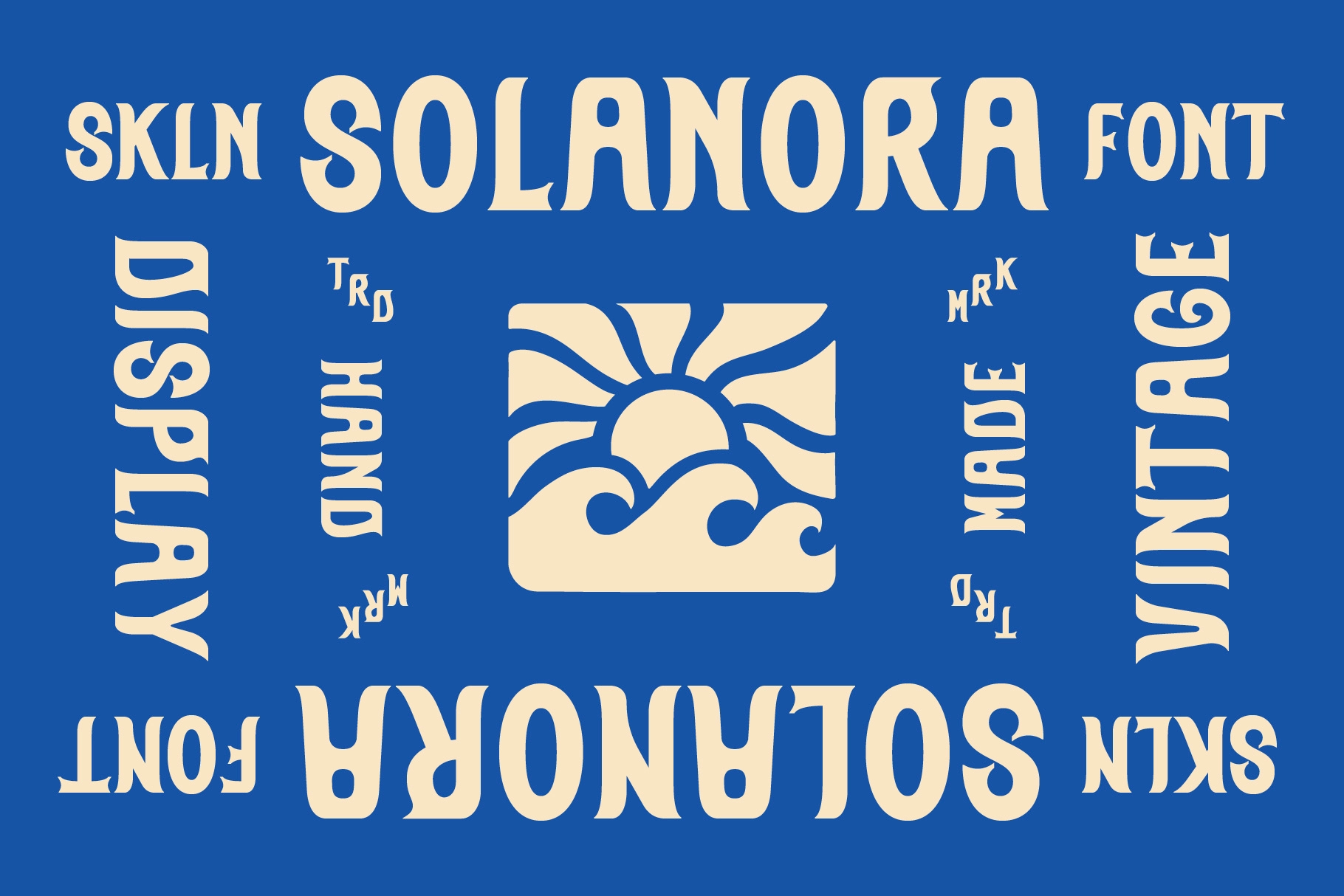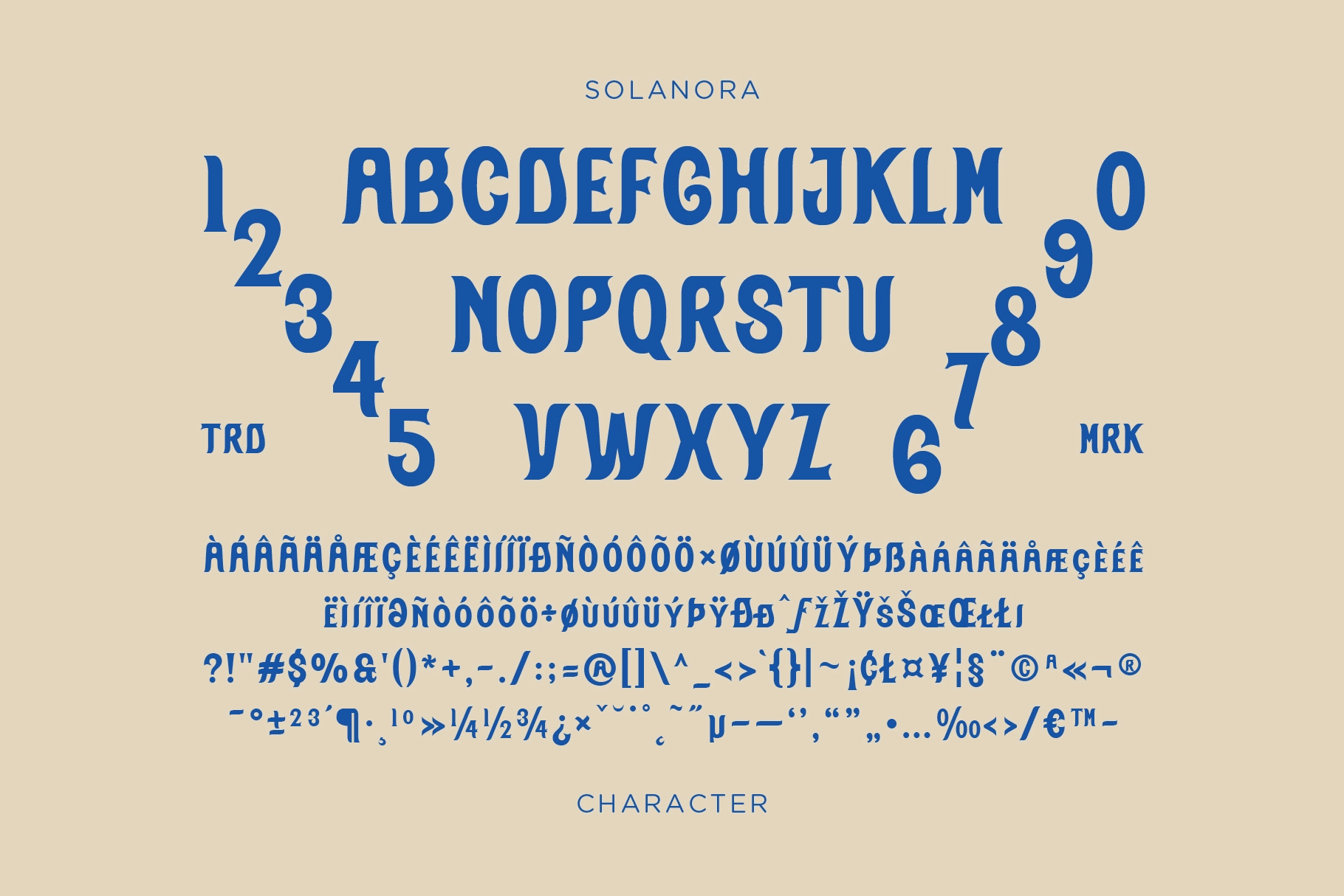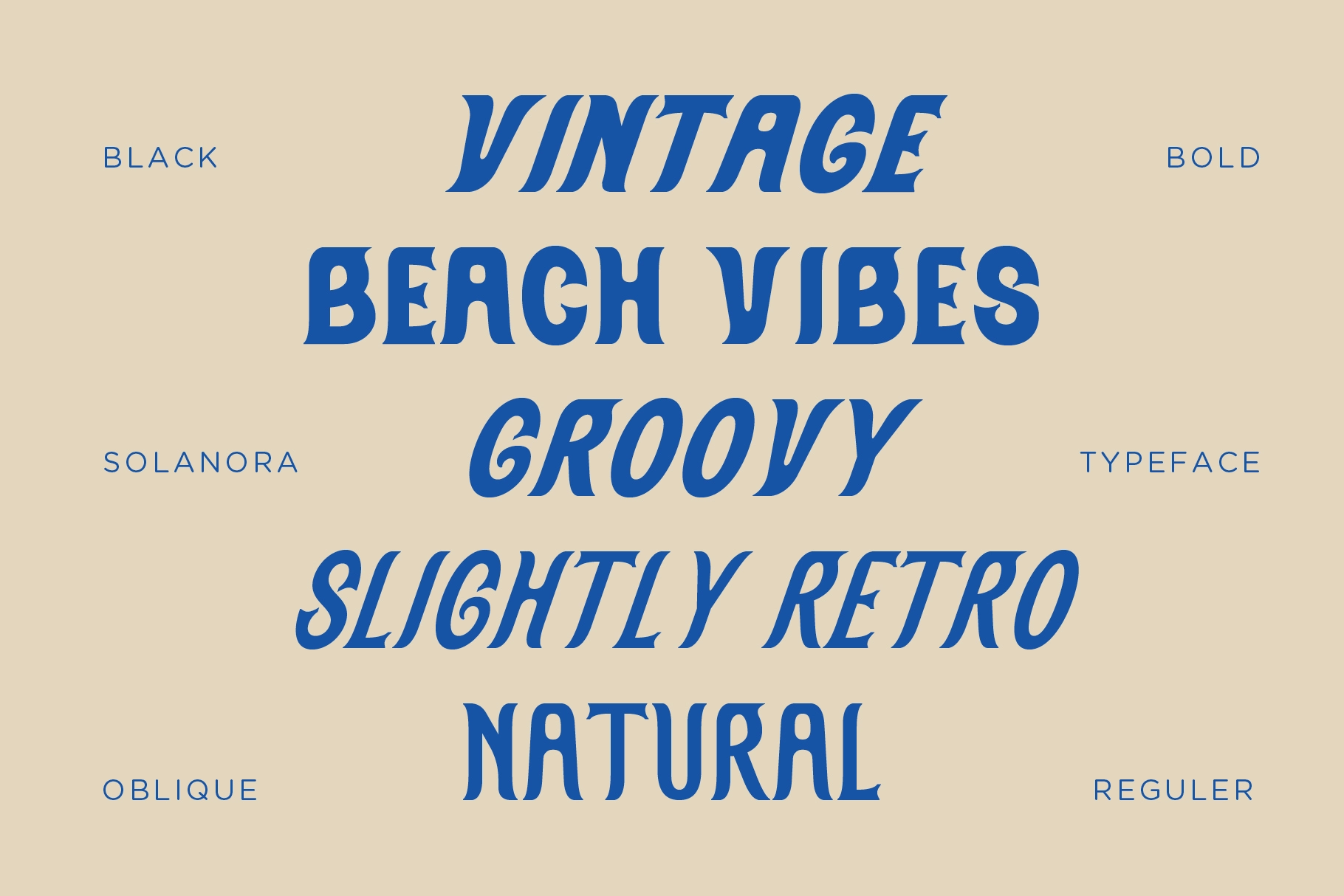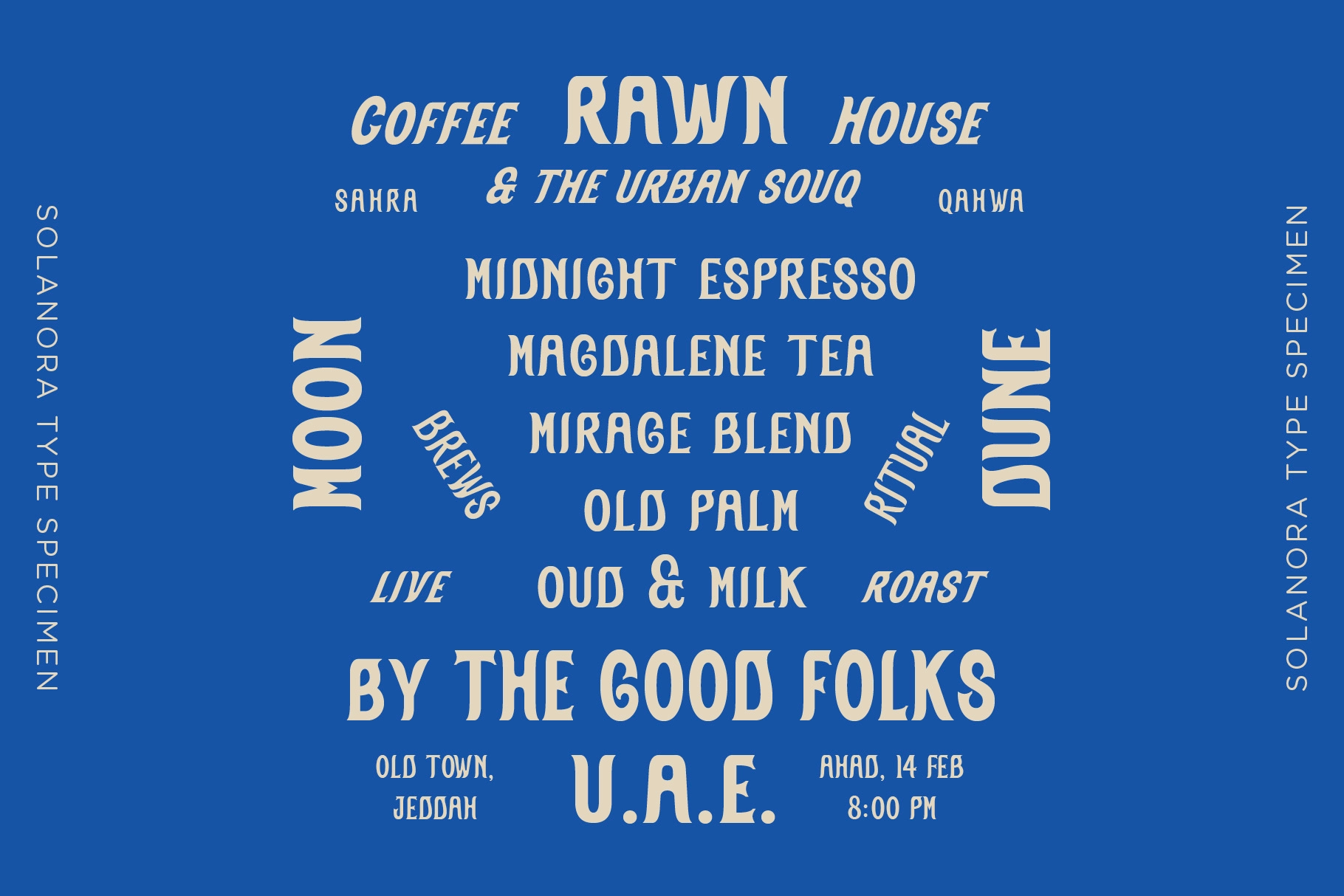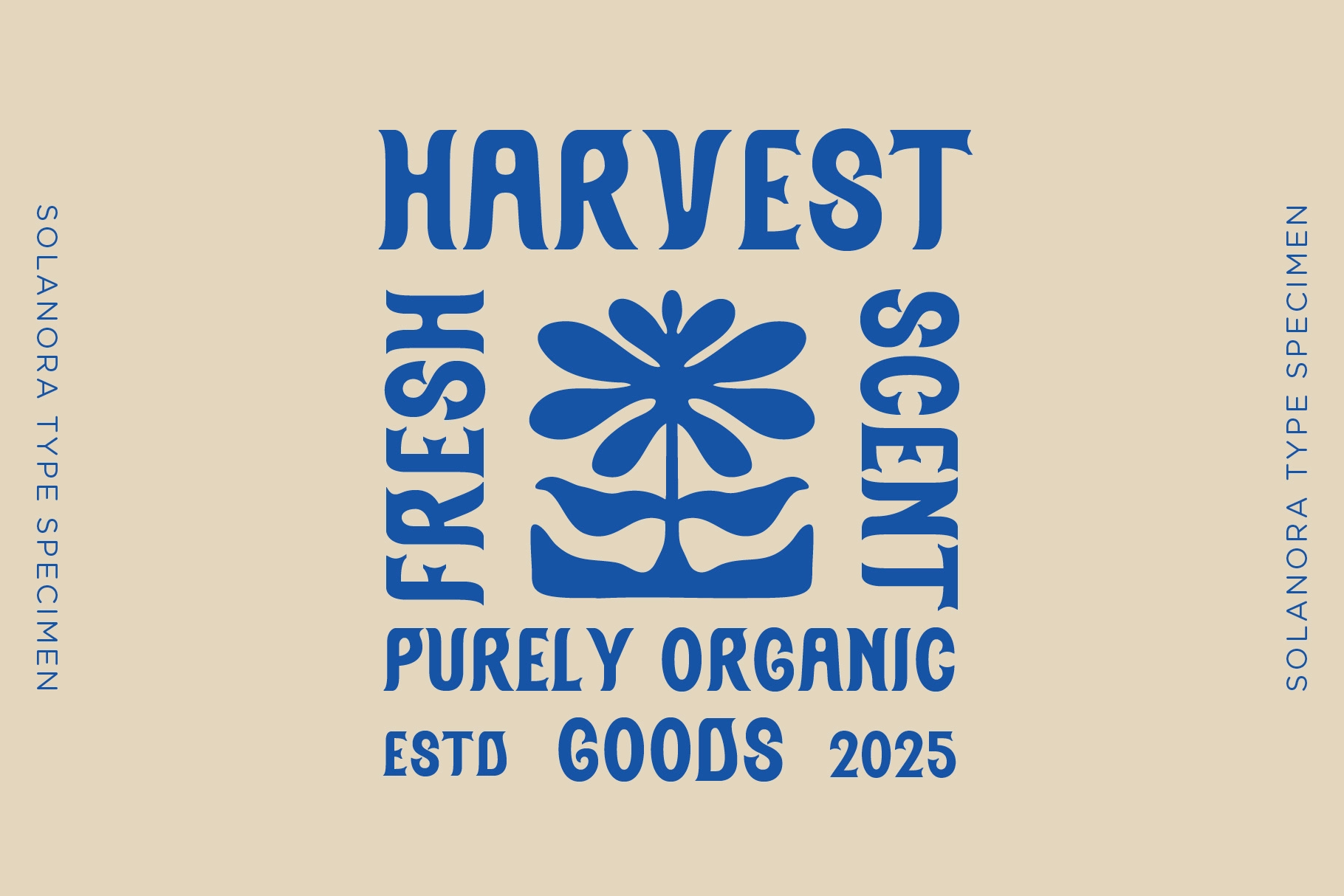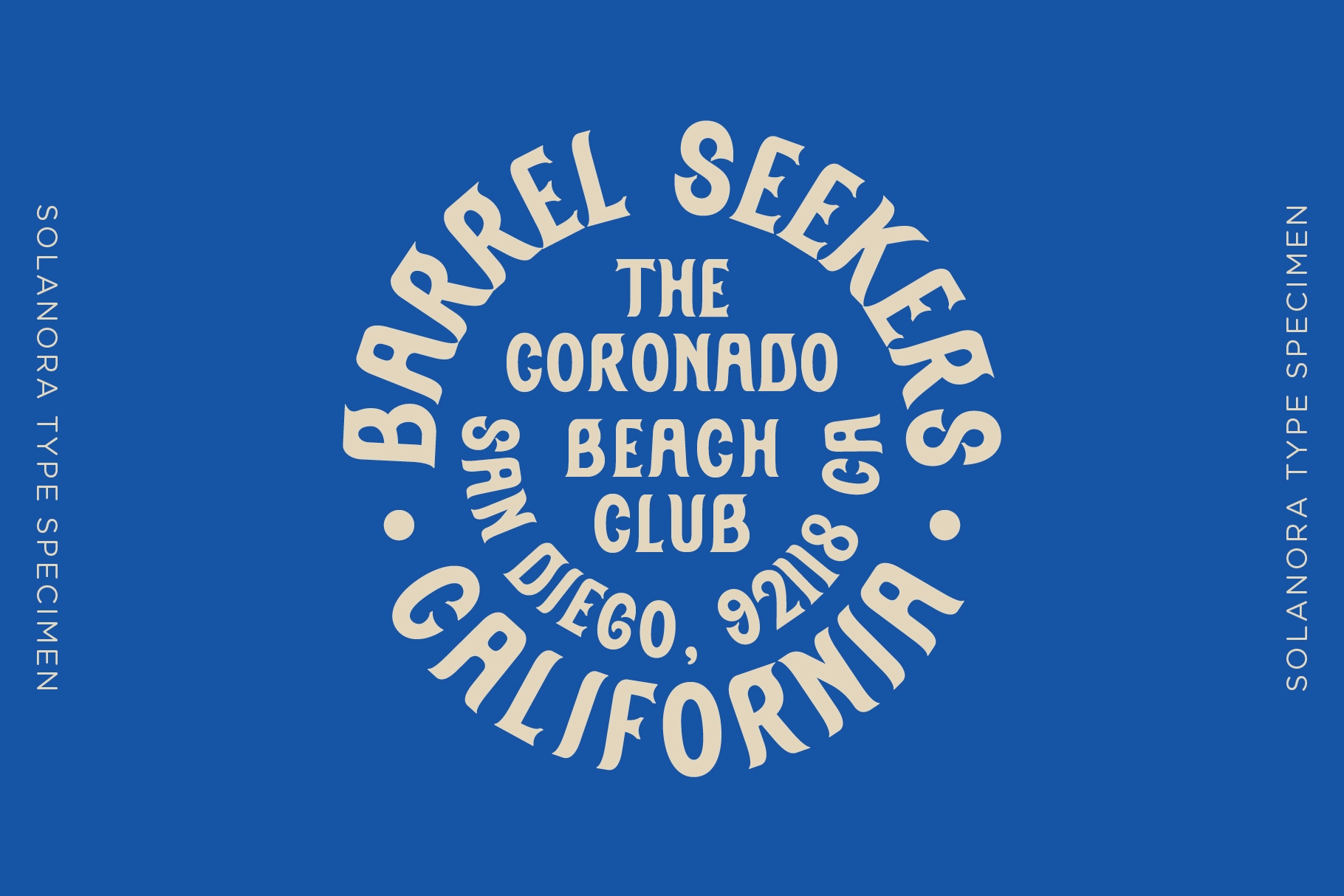
SFC Solanora
Solanora Typeface captures the carefree spirit of sunshine, sea breeze, and nostalgic design. This hand-drawn display sans serif blends bold shapes with smooth, wavy details inspired by mid-century lettering and coastal signage. Each curve feels organic and full of life, bringing warmth and playfulness to your design projects.
Ideal Applications for Solanora:
- Retro beach and surf-inspired branding
- Vintage apparel and lifestyle merchandise
- Posters, labels, and packaging design
- Restaurant or café identity systems
- Travel, outdoor, and event graphics
- Available in Black, Regular, Bold, and Oblique
- Smooth Curves & Vintage Lettering Feel
- Standard Ligatures
- Numerals & Punctuation